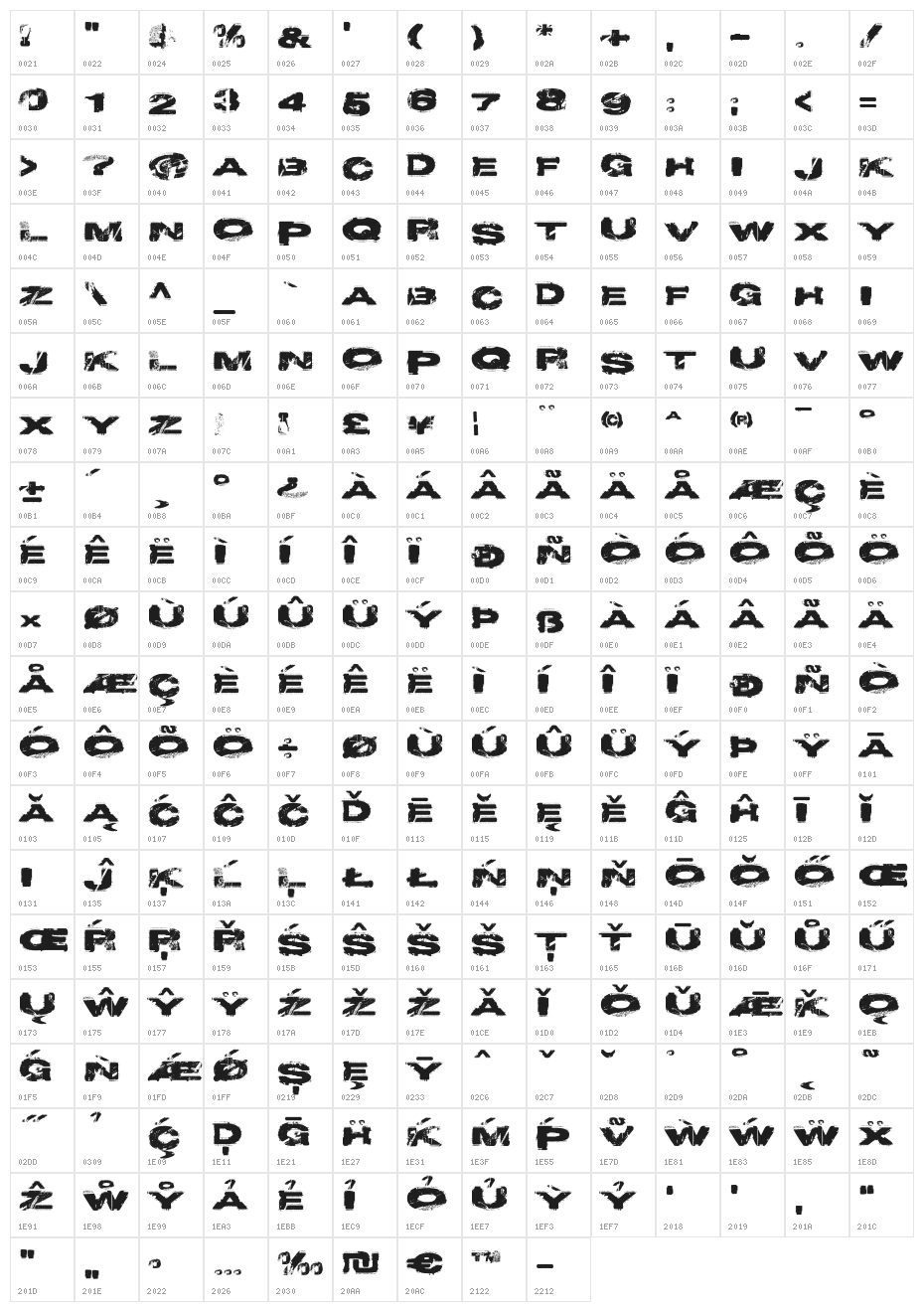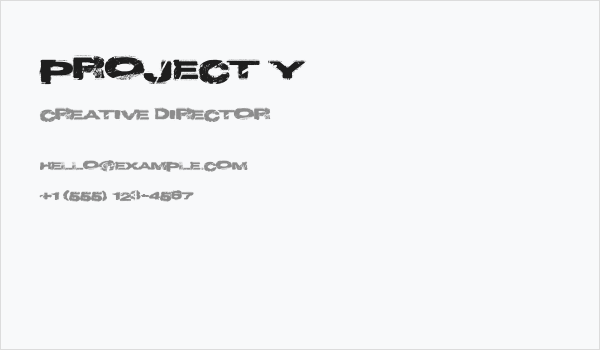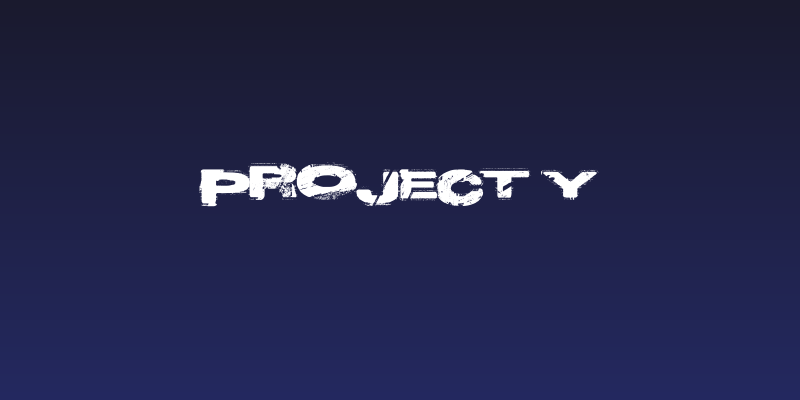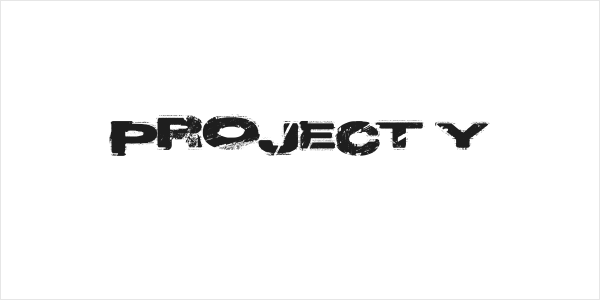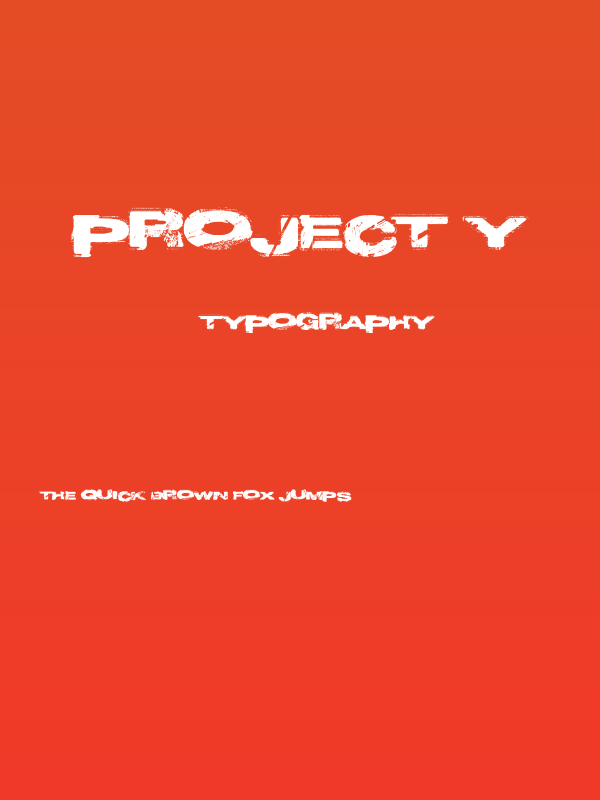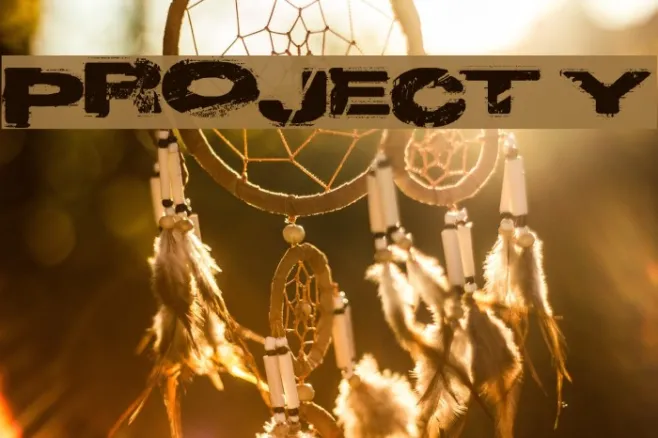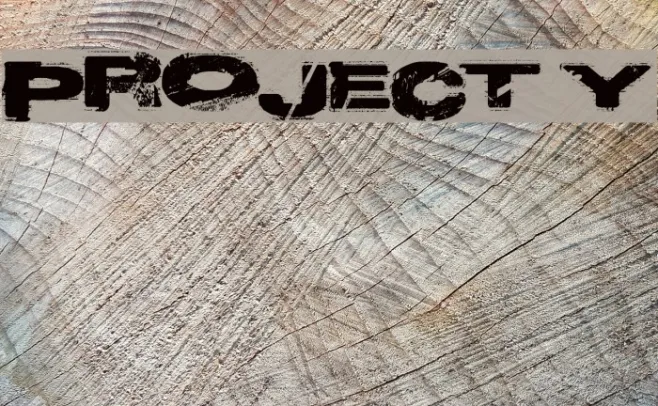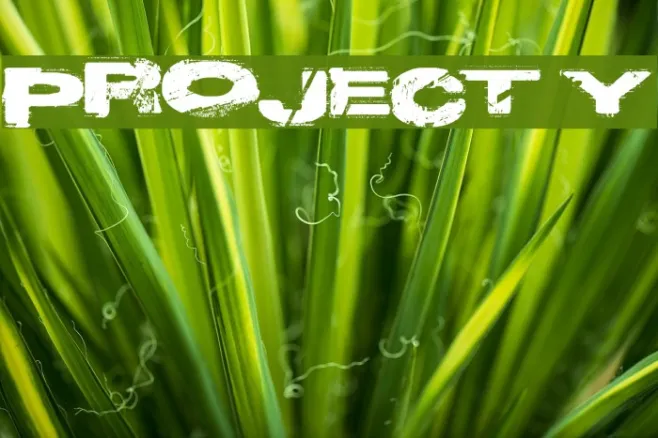
Project Y Font
Project Y Description
This font features a distressed, grunge style with a bold and impactful appearance. The characters are heavily textured, giving them a worn and rugged look, reminiscent of urban street art or weathered signage. The uppercase and lowercase letters maintain a consistent design, with each character exhibiting unique distress marks that add to the overall aesthetic. The numerals and special characters follow the same theme, ensuring uniformity across all glyphs. This font's boldness and texture make it ideal for projects that require a strong visual impact.
| Overall Style | Grunge, Urban |
| Proposed Projects | Ideal for album covers, posters, streetwear branding, and any project requiring a gritty, urban feel. |